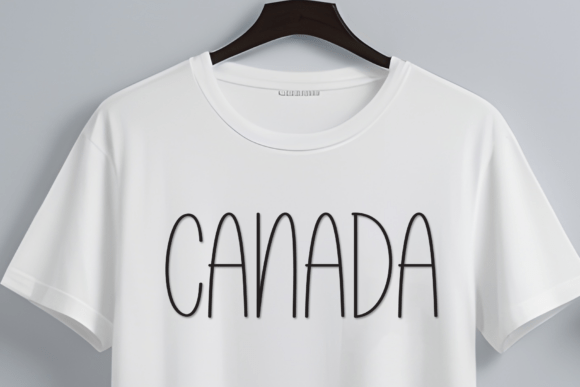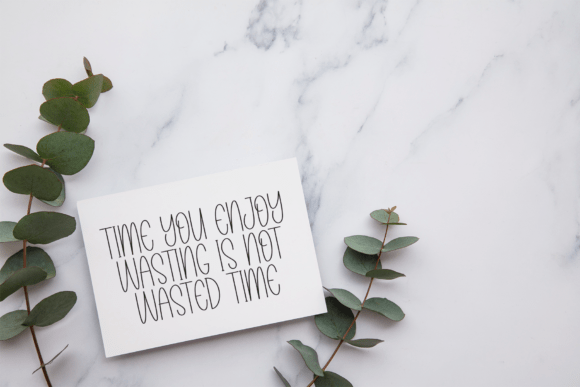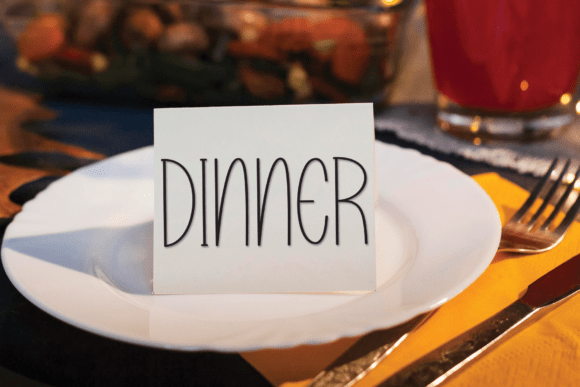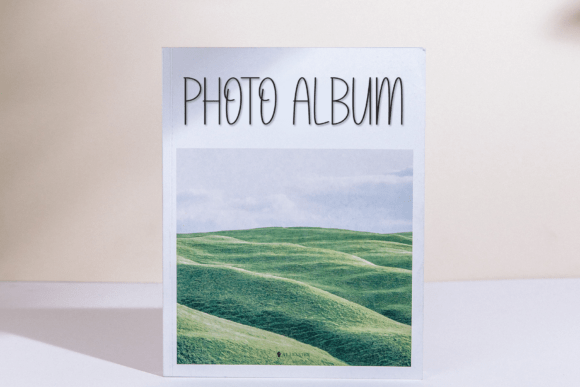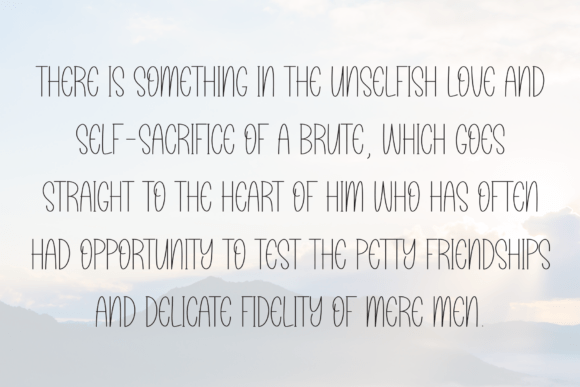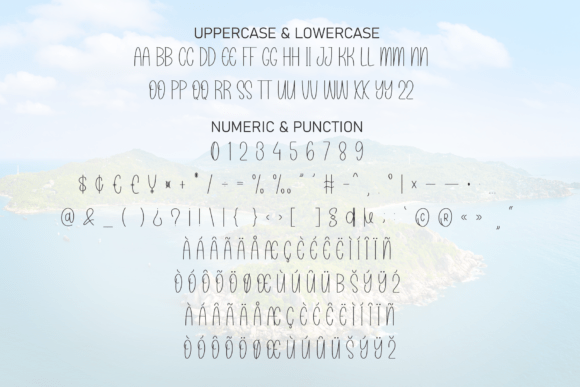
Introduction to Island Wonderful Font
History is a stylish handwritten font that exudes elegance and modern charm.
Featuring fluid strokes, graceful curves, and carefully balanced letterforms, it captures the beauty of hand-drawn calligraphy with a contemporary edge Ideal for logos, invitations, packaging, and social media graphics, it adds a touch of sophistication and personality to any design.
Key Features of Island Wonderful Font
Why Choose Island Wonderful Font?
Island Wonderful Font offers exceptional quality and versatility, making it a valuable addition to your design toolkit. Whether you’re creating for personal projects or commercial use, Island Wonderful Font delivers professional results.